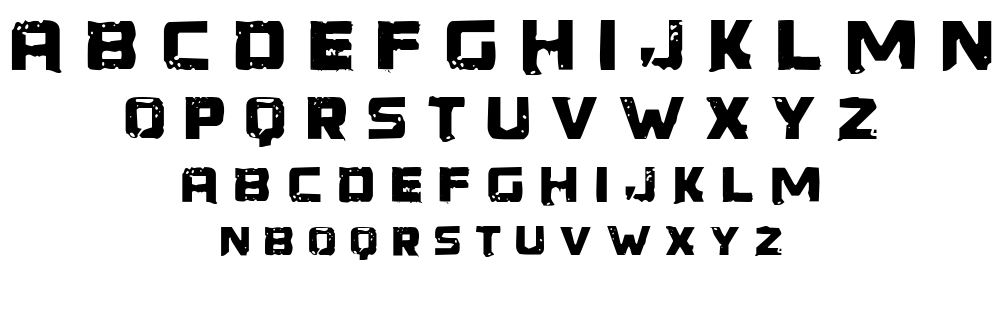
Generator Rex font.
Fan-based font based on the the Cartoon Network Character of the same name, latest version 1.1 has Generator REX gears added to currency glyph ยค (00A4)